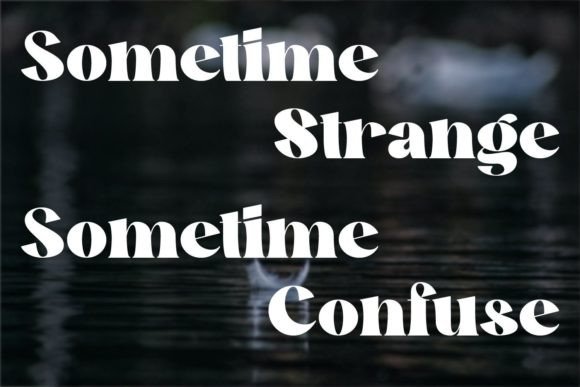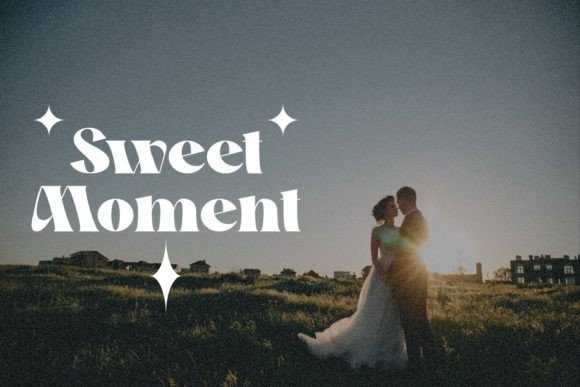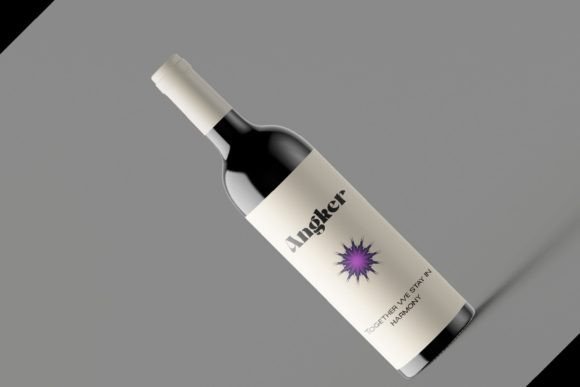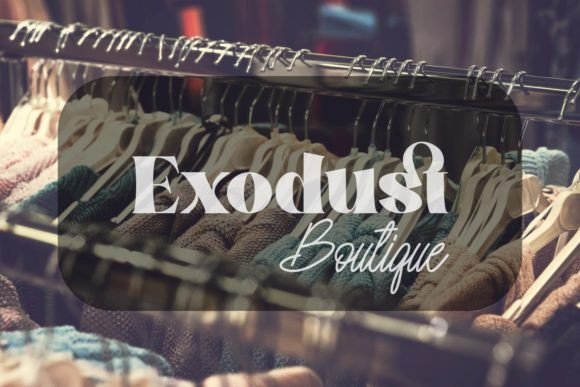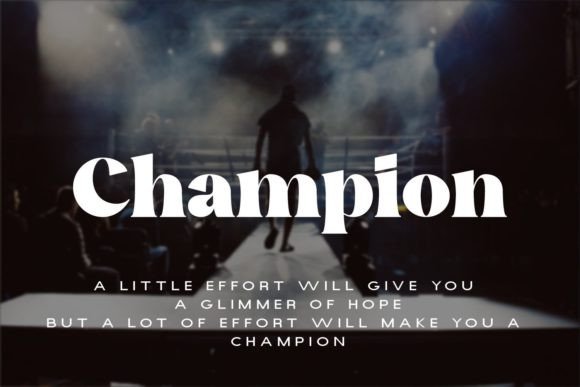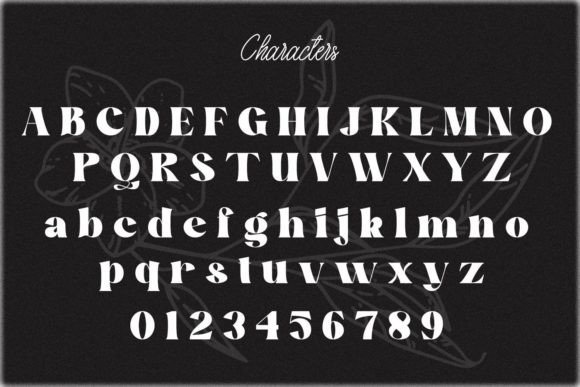
Introduction to Kelphyn Font
Have you ever stared at a blank page, overwhelmed by the endless possibilities of a creative project? As designers, we’ve all been there. But what if you could tap into a design resource that helps bring your vision to life? Enter the Kelphyn Font, a high-quality serif font family designed to support all forms of design, art, and ideas.
With its sleek, modern aesthetic, the Kelphyn Font is perfect for modern magazine designs, website layouts, and branding layouts. Its versatility and creative freedom make it an invaluable asset for designers looking to push the boundaries of their work. Whether you’re working on a free download or a paid project, the Kelphyn Font offers a transparent background that lets your ideas shine through.
As a valuable addition to any designer’s toolkit, the Kelphyn Font is a game-changer for creatives. Its innovative designs and high-quality features make it an essential resource for anyone looking to elevate their work and make a lasting impression.
Key Features of Kelphyn Font
- High-quality design for creative projects, making it a valuable design resource.
- Available in a transparent background, allowing for seamless integration into various designs.
- Features a clean and modern aesthetic, making it suitable for a wide range of design applications.
- Designed with precision and attention to detail, resulting in a high-resolution font suitable for print and digital use.
Honest Review: Kelphyn Font
I recently had the chance to work with the Kelphyn Font, and I must say it’s a great addition to any designer’s toolkit. The high quality of this font is immediately apparent, making it a perfect choice for any creative project.
One of the standout features of the Kelphyn Font is its versatility. It comes in a variety of weights, from light to bold, allowing designers to achieve a range of visual effects. ✨ The font also features a transparent background, making it easy to layer over other design elements.
Some of the key benefits of the Kelphyn Font include:
- Easy to use and customize
However, I do have one major criticism: ⚠️ the Kelphyn Font is not suitable for small text sizes. At smaller sizes, the font can become difficult to read, which may limit its use in certain design applications.
Overall, I’m very impressed with the Kelphyn Font. Its high quality and versatility make it a valuable resource for any designer. Whether you’re working on a large-scale project or just need a reliable font for everyday use, the Kelphyn Font is definitely worth checking out.
Tips for Getting the Most Out of Kelphyn Font
For optimal results, use the Kelphyn Font in conjunction with a high-quality image or graphic. You can also experiment with different font sizes and styles to create a unique and eye-catching design. Additionally, consider using a transparent background to make your design stand out.
The Kelphyn Font is a versatile design resource that can be used for a variety of purposes, including logos, social media graphics, flyers, brochures, and presentations. It’s a great choice for anyone looking for a high-quality, free download font.
Can I use the Kelphyn Font with a transparent background?
Yes, the Kelphyn Font is designed to be used with a transparent background. This allows you to easily overlay the font on top of images or other design elements, creating a seamless and professional-looking design. Simply use the font’s transparent background feature in your design software to achieve this effect.